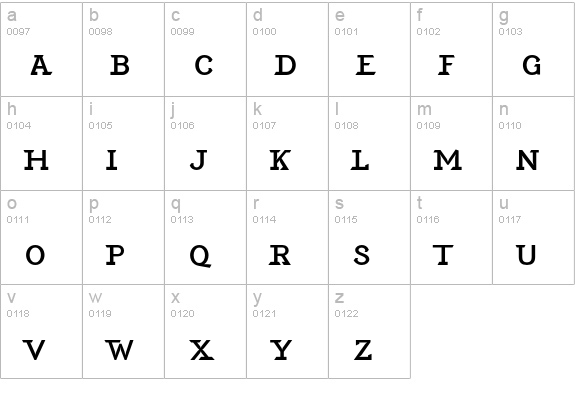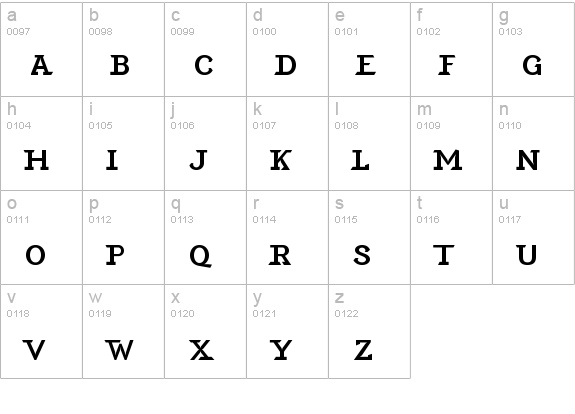
EquipoizeSerif-Smallcaps Font Details
EquipoizeSerif-Smallcaps is a sophisticated and elegant font that exudes a sense of timeless charm and classic style. With its delicate small caps and refined serifs, this font is perfect for adding a touch of sophistication to any design project. Whether you're creating invitations, logos, or editorial layouts, EquipoizeSerif-Smallcaps will elevate your designs to new heights. What sets EquipoizeSerif-Smallcaps apart is not only its aesthetic appeal but also its versatility. This font is equally well-suited for both formal and informal contexts, making it a truly versatile addition to any designer's toolkit. Its clean lines and balanced proportions ensure readability and legibility across various mediums and sizes. And the best part? EquipoizeSerif-Smallcaps is completely free to download at FontsMarket.com. This means that you can access this stunning font without any cost, making it an accessible option for designers of all skill levels. Don't miss out on the opportunity to enhance your projects with the timeless beauty of EquipoizeSerif-Smallcaps - download it today and see the difference it can make in your designs.